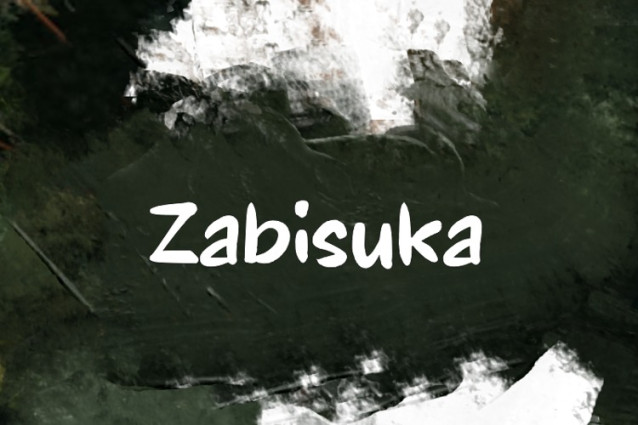
Zabisuka Font
Zabisuka font has a modern, friendly and highly expressive style, suitable for creative designs, individuals or brands that want to create exclusivity.